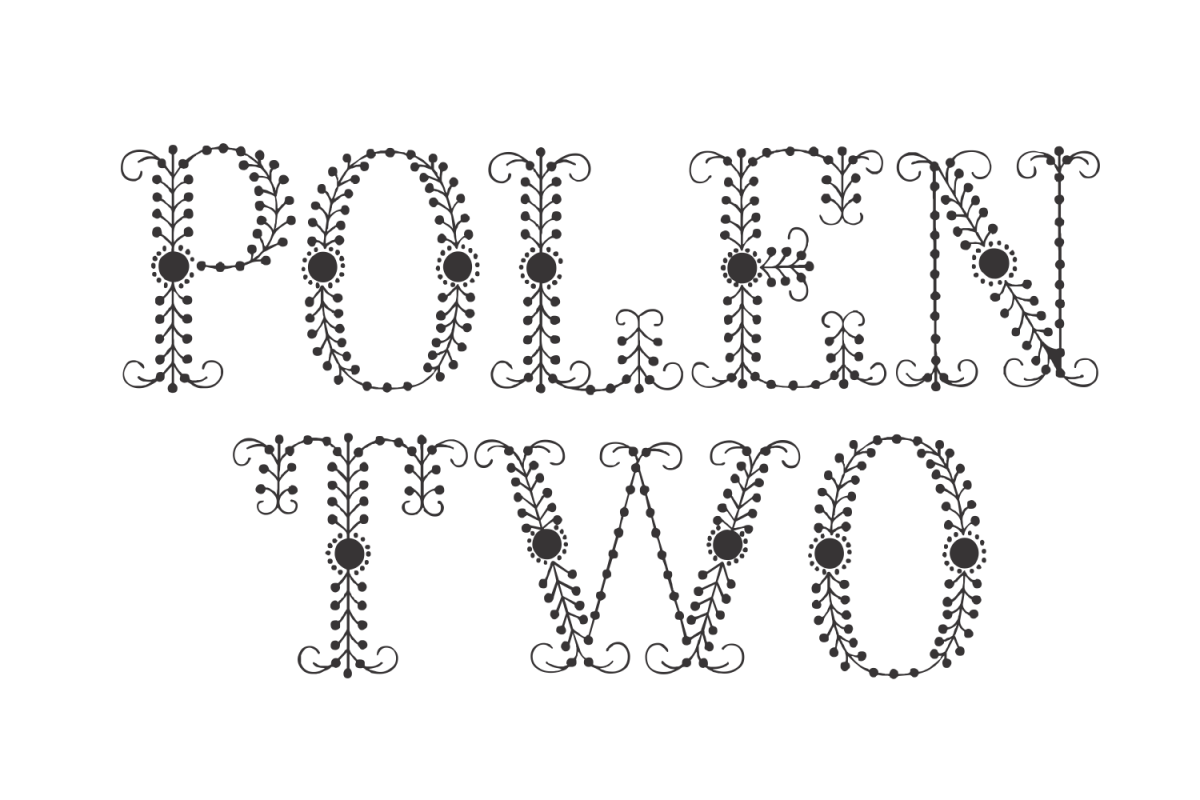
Polen Two - and a bonus !
Polen Two is a soft, well elaborated and unusual font design. Works great when used for display reasons only. Contains only uppercase alphabet designs. BONUS IN THIS PURCHASE : POLEN SHADOW FREE !!!